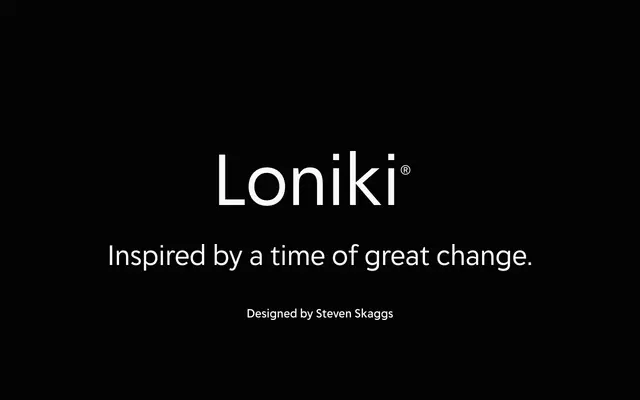
Loniki
A display typeface by Steven Skaggs drawn from a 5th-century Thessaloniki inscription, fusing classical, Byzantine and gothic letterforms across a 229-language glyph set.
Rooted in a specific lapidary inscription from Thessaloniki's archaeology museum, Loniki balances rational geometry with sinuous curves that recall the cultural crossroads of late antiquity. Extensive OpenType features, including discretionary ligatures and stylistic alternates, allow designers to shift the cultural register of a layout from classical to gothic without changing the font. A companion Symbols file adds over 140 ornaments, astronomical and alchemical devices, and Futhark runes. Winner of an Indigo Design Awards 2024 Gold in Typography.
Loniki is a display typeface rooted in a 5th-century Greek inscription, combining rational geometry with sinuous curves drawn from late antique lapidary letterforms. Its blend of classical, Byzantine and gothic influences places it firmly in the display category with an inscriptional subcategory.